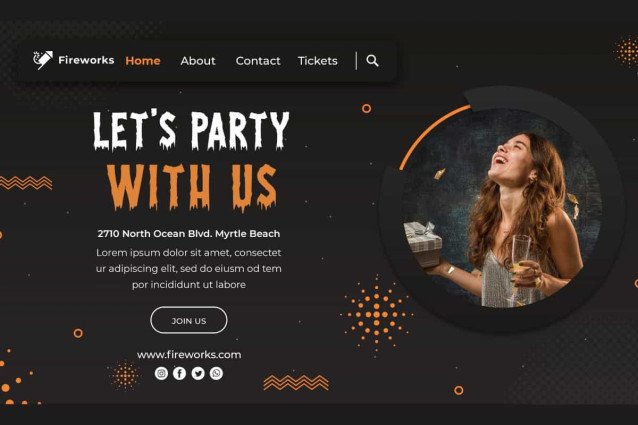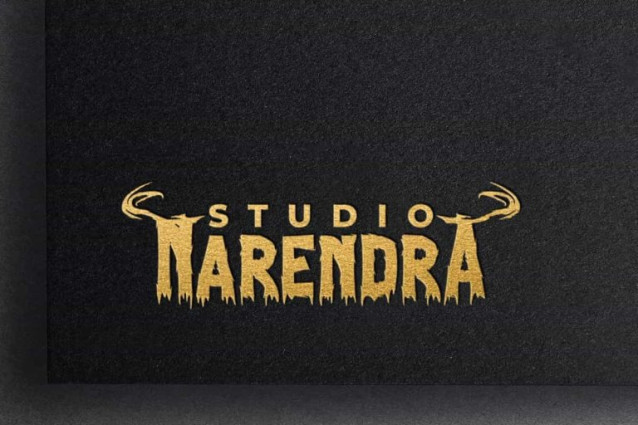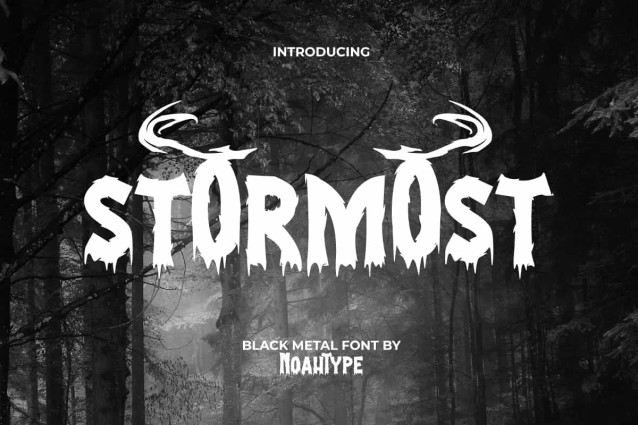
Stormost Display Font
Stormost Display Font is a bold and mysterious black metal font, created by NoahType. This font is equipped with horns and liquid flowing under the letters, making it look even more scary. It will be perfect for any designs, such as brand image, cover, custom design, poster, invitation, label, marketing material, menu, printing, product packaging, quotes, signage, website, and many more!
Stormost Font includes full set of ALL CAPS for Uppercase and Lowercase Basic Characters, Numerals, Punctuation, and Symbol. The Alternate character will make your design awesome and also a perfect choice for many industries, such as fashion, game, movie, barber shop, accessories, advertising, art, café, event or festival, printing, publishing, etc.